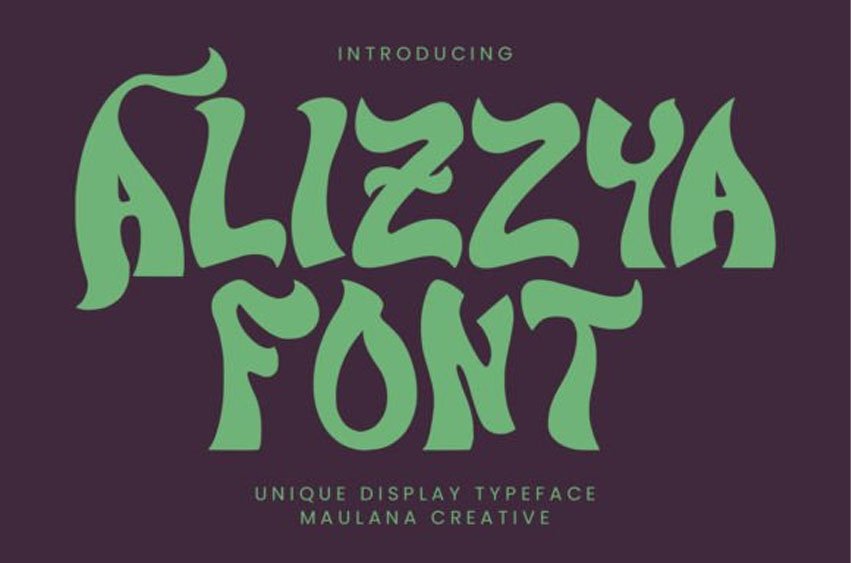
Alizzya Font is a wavy display font that brings a playful and dynamic vibe to your design projects. With its fluid and curvy letterforms, Alizzya adds a sense of movement and whimsy to your text. Ideal for projects that demand a touch of creativity and a relaxed, yet stylish aesthetic.
Whether you’re working on invitations, branding, or any design that calls for a unique flair, Alizzya is the perfect choice to infuse your work with a wave of character and charm.